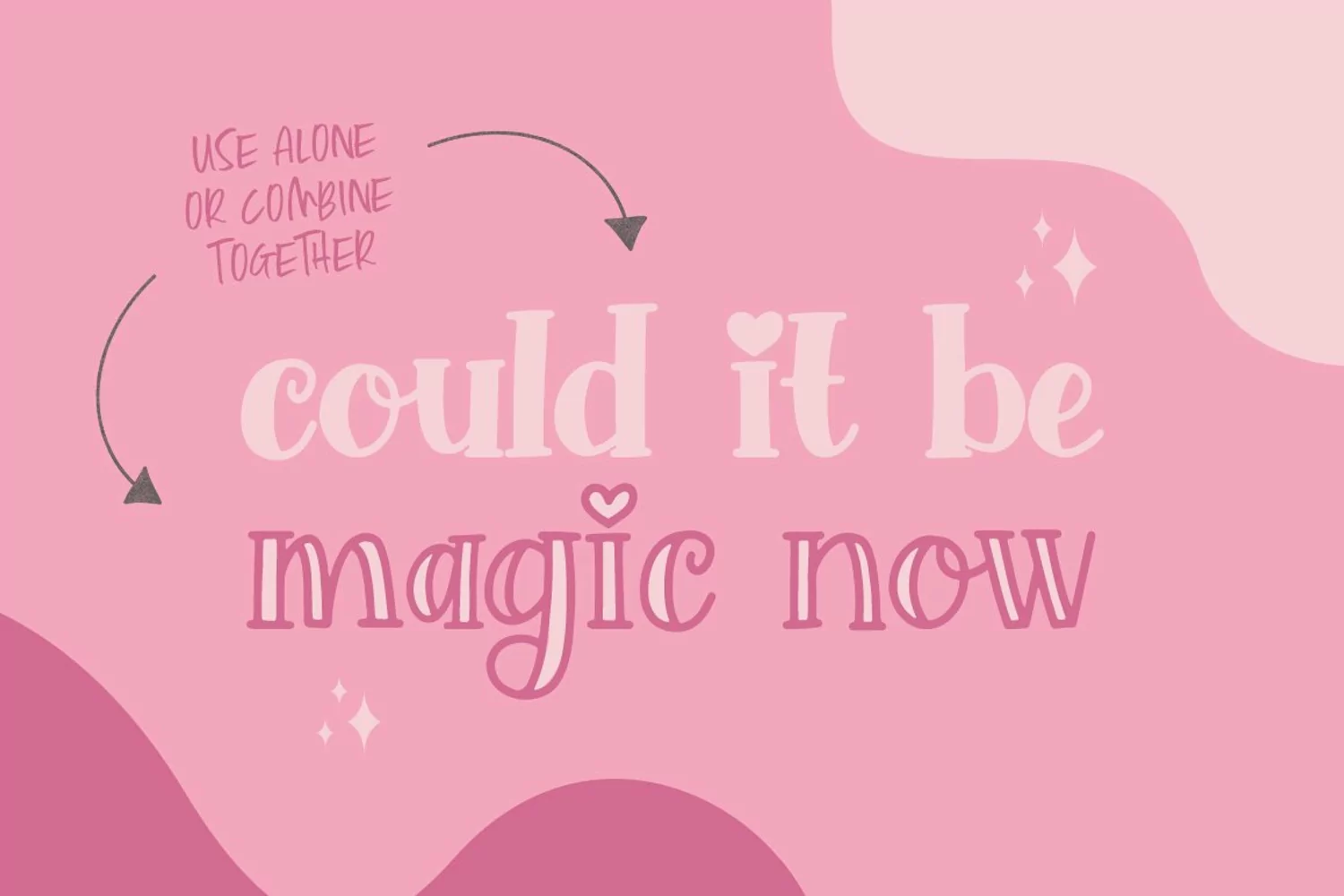
Moliton Font Duo example image 1
This adorable new duo is a sweetie you don’t want to miss! It has hearts, swirls and tons of added sass that keeps your designs hand-written and awesome no matter what! Hand drawn and wonderful, don’t miss this cutie!